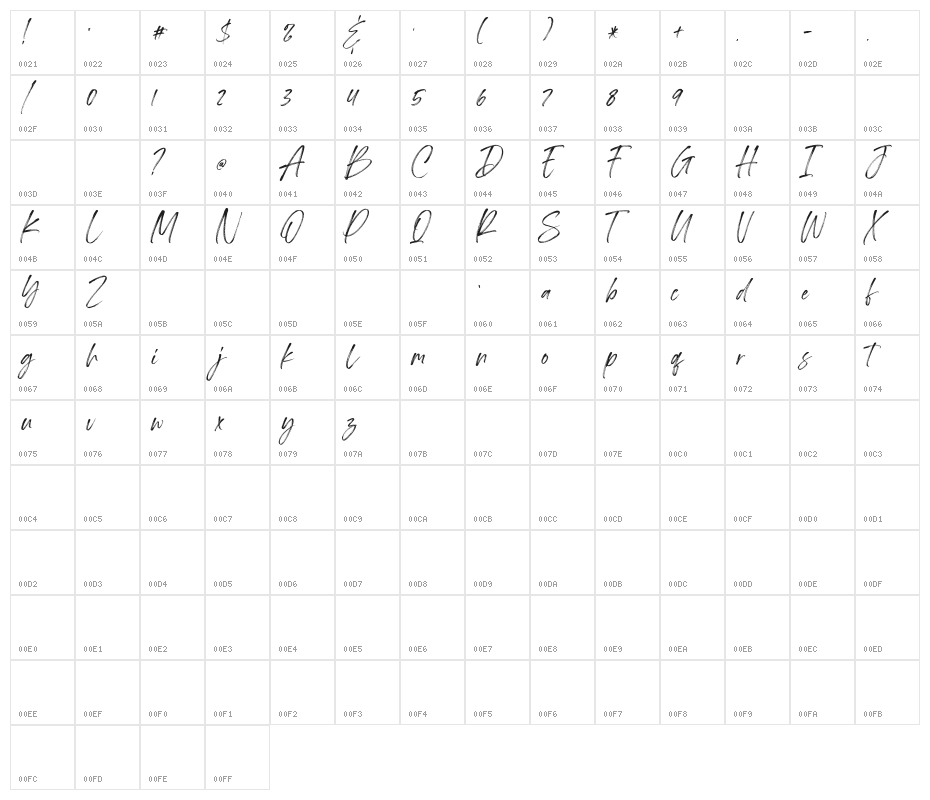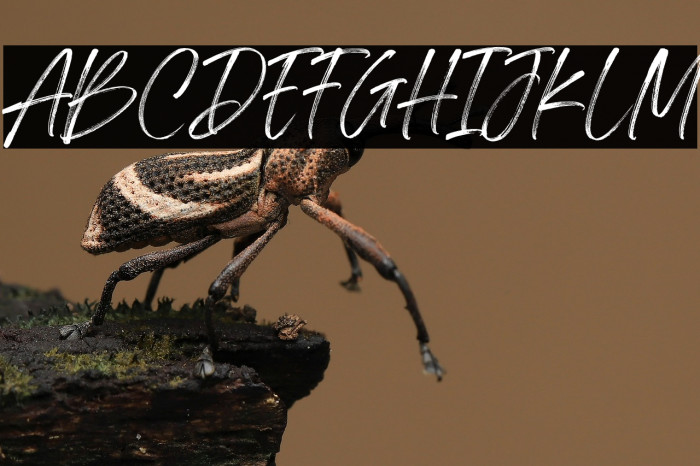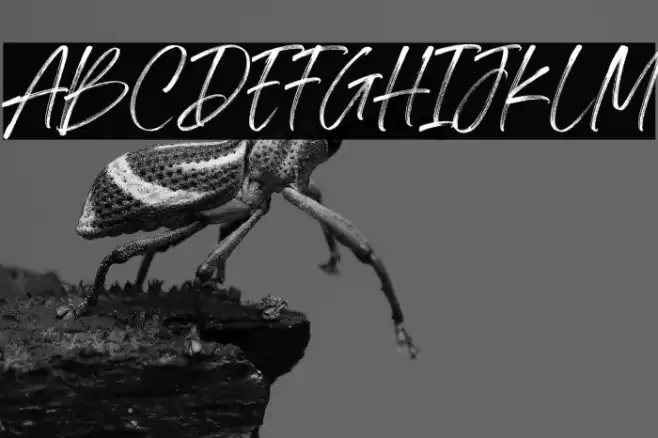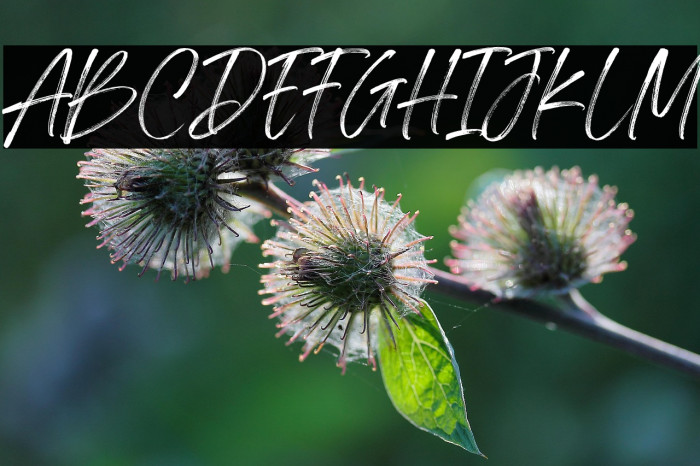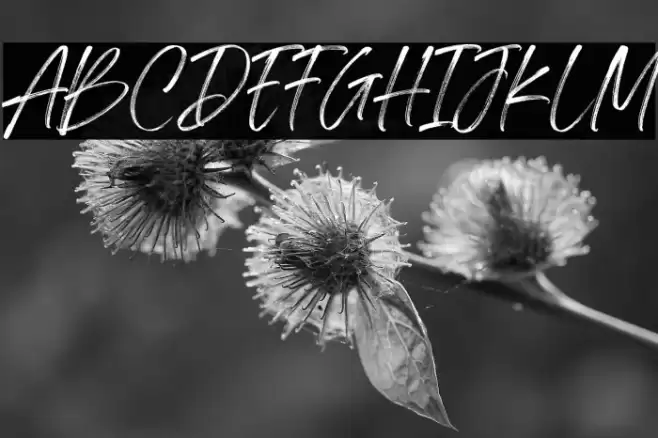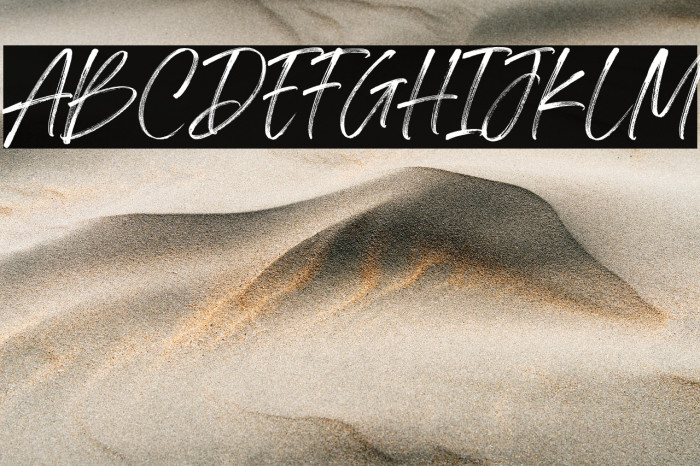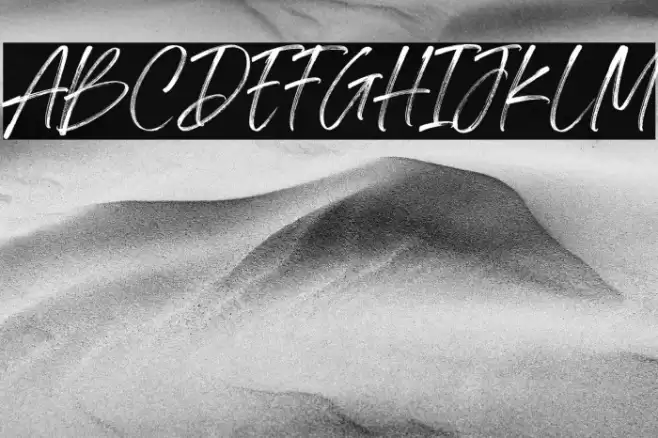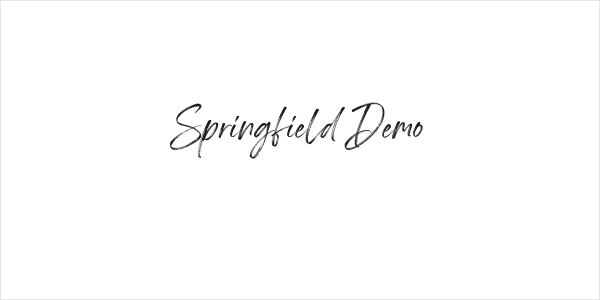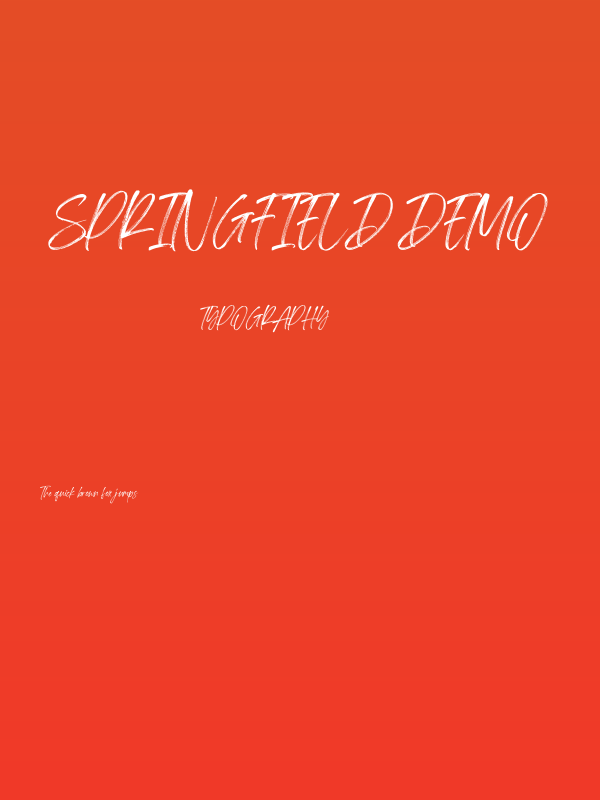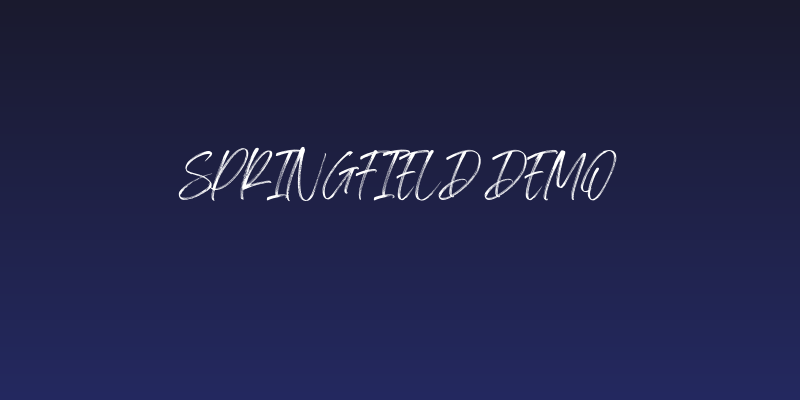
Springfield Demo Font
Springfield Demo Description
This font exudes a dynamic and expressive style, characterized by its fluid, hand-drawn appearance. The strokes are varied in thickness, giving it a lively and energetic feel. The uppercase letters are bold and sweeping, while the lowercase letters maintain a consistent flow, adding to its handwritten charm. The numbers and special characters are crafted with the same artistic flair, ensuring a cohesive look across all elements. This font is perfect for projects that require a personal touch, such as invitations, greeting cards, or branding materials that aim to convey creativity and individuality.
| Proposed Projects | Ideal for invitations, greeting cards, branding, and creative projects. |